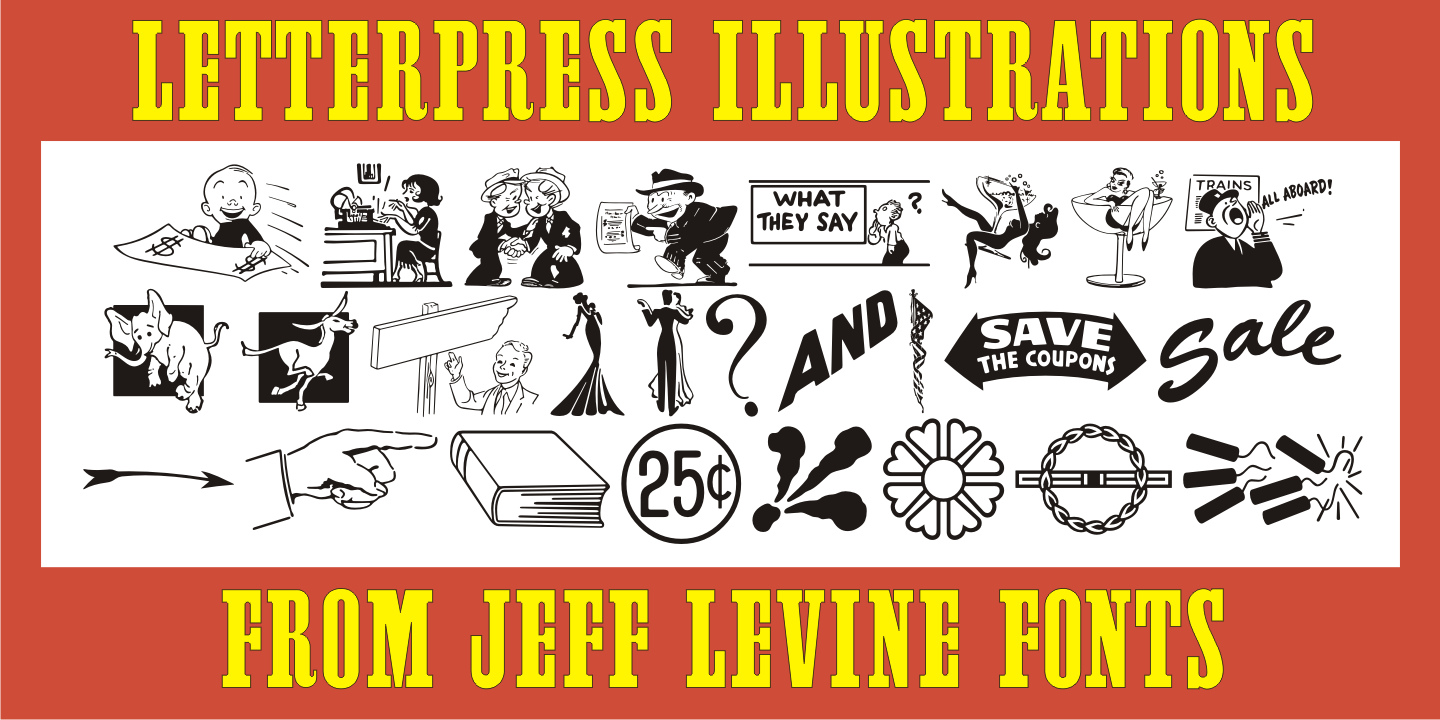
Letterpress Illustrations
Letterpress Illustrations JNL is another collection of dingbats, cartoons, catch words, embellishments and ad helpers all re-drawn from vintage source material.